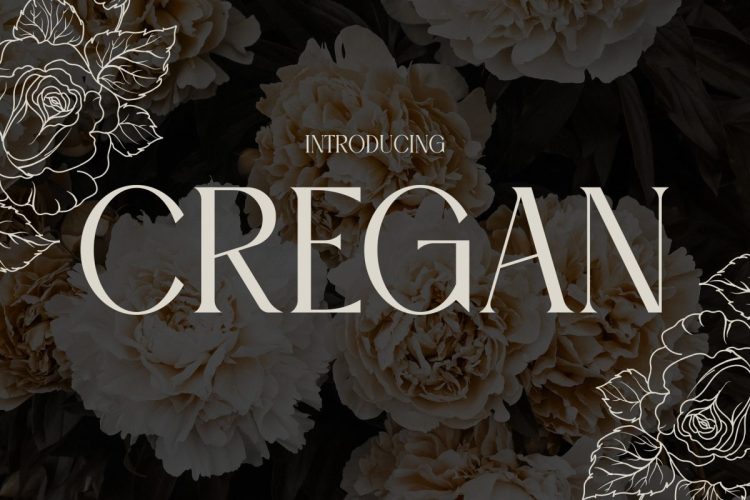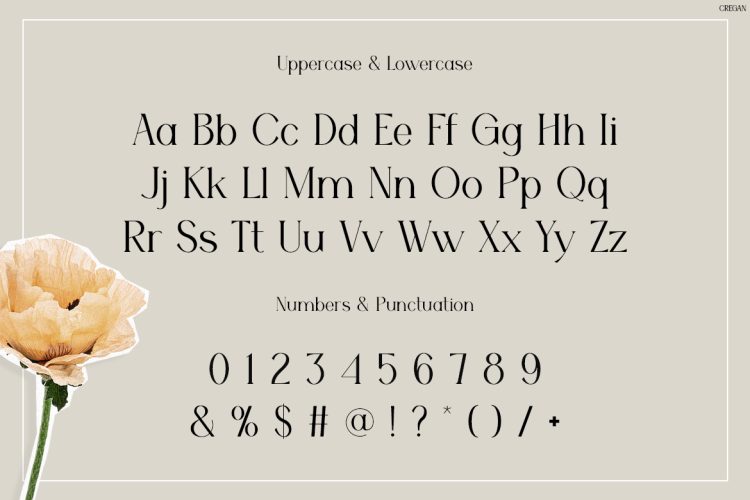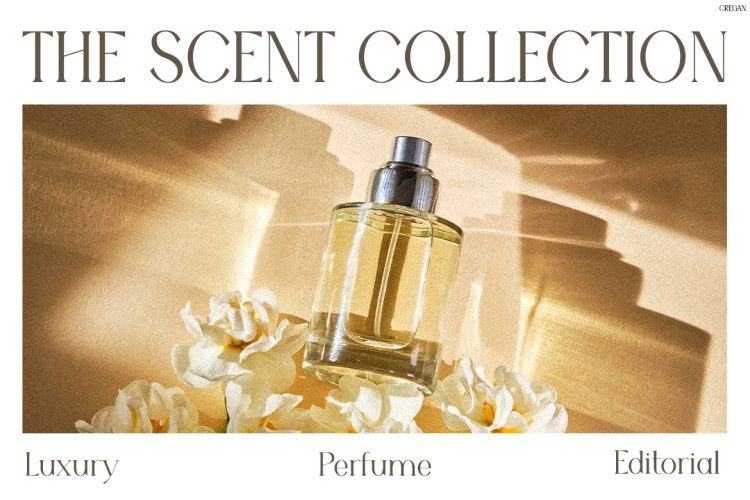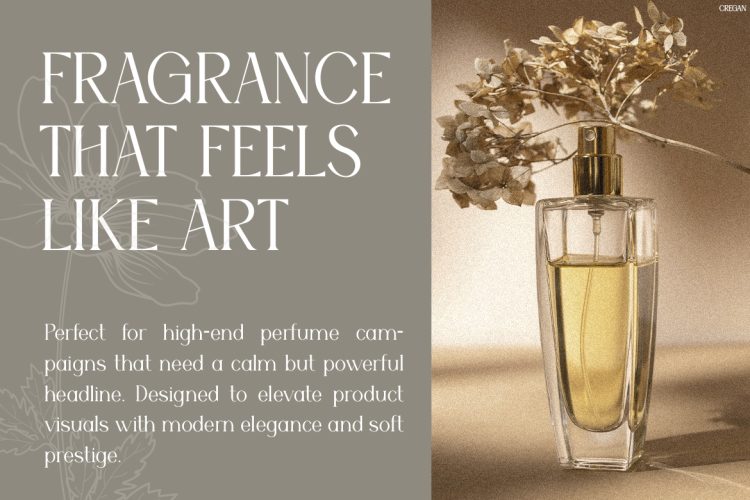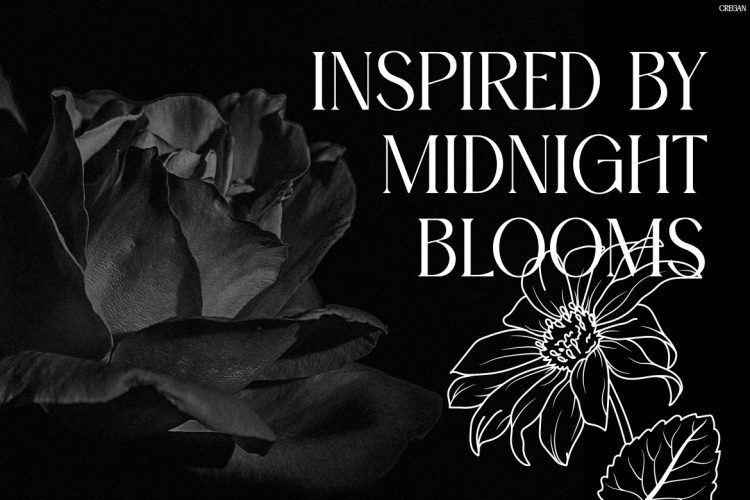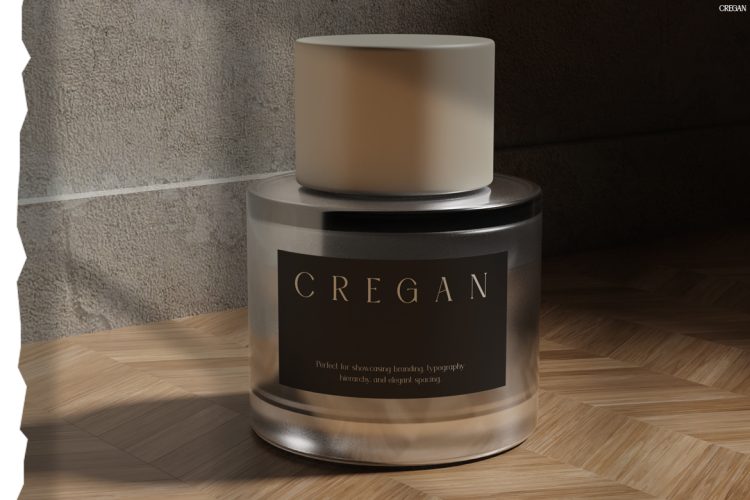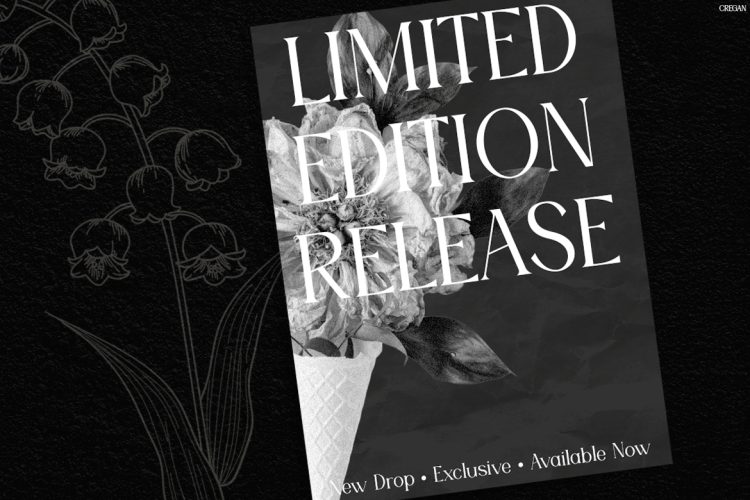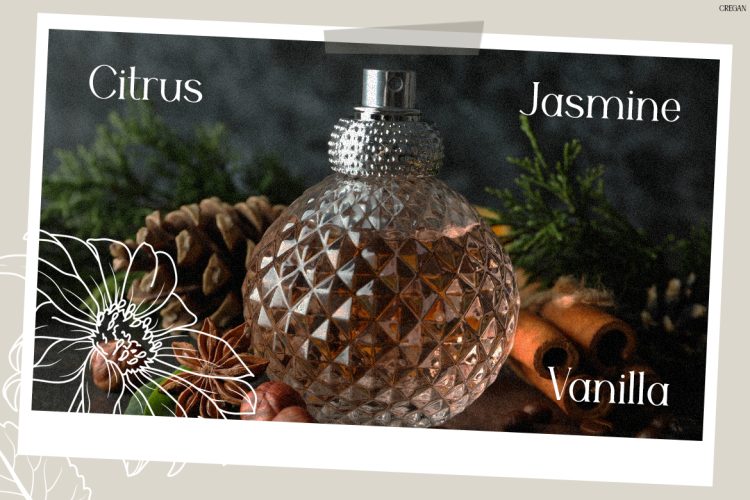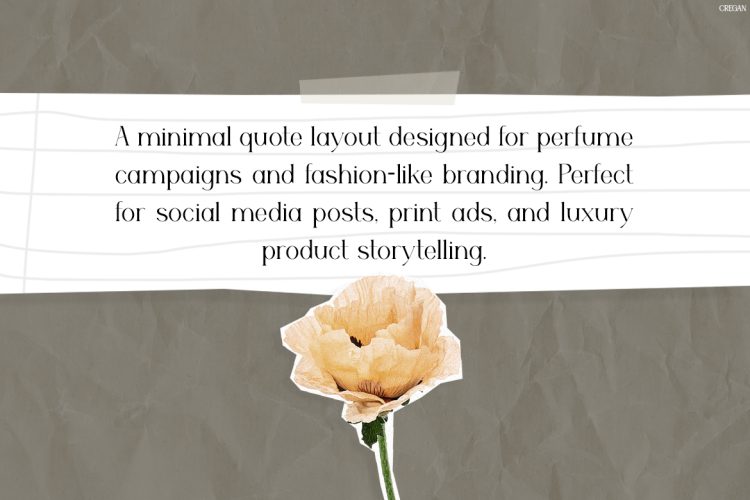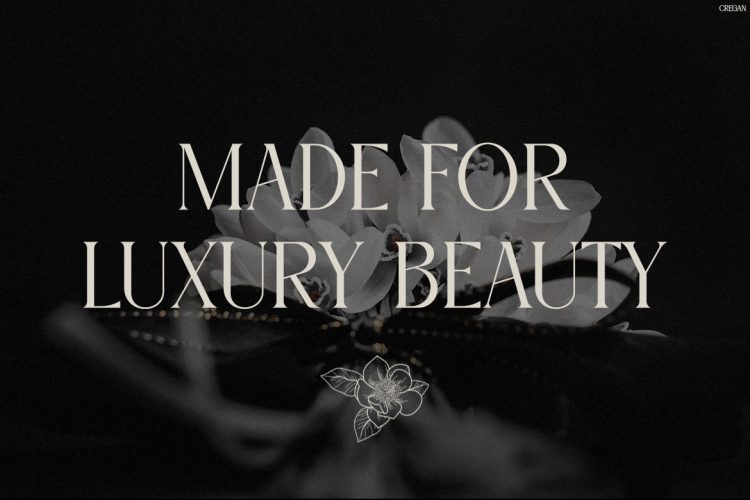
Instagram Font Cregan โ Elegant Luxury Serif with Editorial Beauty Vibes
Instagram Font Cregan is a sophisticated luxury display font designed to bring timeless elegance and premium editorial style into every design. With its refined serif structure, delicate curves, and graceful high-fashion aesthetic, this font instantly creates a classy and luxurious visual atmosphere. Moreover, the thin elegant letterforms make every headline feel more artistic, stylish, and visually captivating. In addition, the balanced typography keeps your text highly readable, so your layouts stay clean across both digital and print media. Because of its modern luxury appearance, Instagram Font Cregan works perfectly for perfume branding, beauty campaigns, skincare packaging, and elegant social media content. Furthermore, the sophisticated serif details help every design feel more polished and exclusive. At the same time, the editorial-inspired styling adds a timeless and premium mood that audiences instantly admire.
Why Instagram Font Cregan Looks So Luxurious
Cregan combines classic serif elegance with modern beauty branding aesthetics. As a result, every word feels refined, graceful, and full of sophistication. Not only does the font create a luxurious atmosphere, but it also enhances the overall visual beauty of your branding with its stylish and minimalist appearance. Additionally, the slim serif structure gives your typography a more editorial and high-end feel. Meanwhile, the elegant proportions help every layout look balanced and professionally curated. Whether you are creating fragrance promotions, cosmetic packaging, or luxury Instagram posts, this font helps every project feel more premium and unforgettable. Likewise, the clean artistic styling instantly elevates the visual quality of your content.
- Luxury perfume branding
- Beauty and skincare packaging
- Editorial magazine layouts
- Elegant Instagram posts
- Cosmetic promotions
- Fashion campaigns
- Boutique branding
- Premium product packaging
- Lifestyle advertisements
- High-end social media graphics
Elevate Every Design with Timeless Luxury